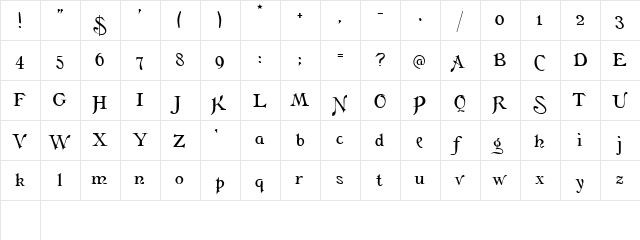
Flaubert Regular
Design Context for Flaubert Typeface
Flaubert is a composed and adaptable typeface that performs quietly and consistently across a wide range of design contexts.